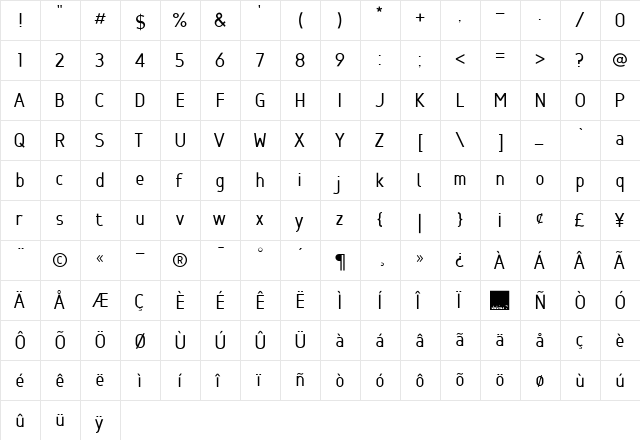
Min Regular
Design Context for Min Typeface
Min offers clean, dependable letterforms without strong stylistic allegiance, making it a practical choice for designers who need flexibility.